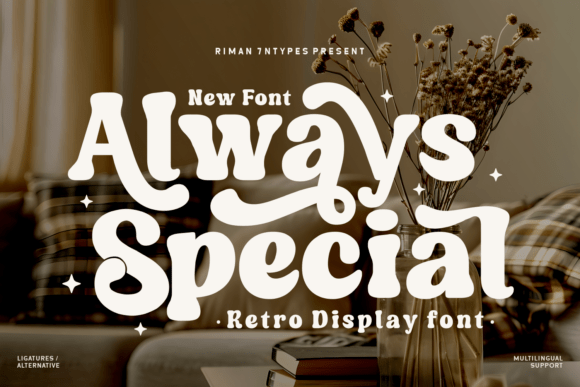
Introducing Always Special Font: A Timeless Blend of Vintage Charm and Modern Sophistication
In the world of typography, few fonts manage to strike a balance between nostalgia and modernity. However, “Always Special” font has successfully achieved this feat, offering an enchanting fusion of vintage charm and contemporary appeal. This unique blend makes it an ideal choice for designers seeking to infuse their projects with a sense of coziness, warmth, and magnetic charm.
The Essence of Always Special Font
Always Special font tenderly encapsulates the cozy familiarity of yesteryears while still resonating a fresh, contemporary appeal. Its playful twists and smooth, rounded contours make it a standout in the world of typography. The font’s design is characterized by:
- Vintage Charm: Always Special font draws inspiration from classic typography, evoking memories of traditional printing and nostalgic signage.
- Modern Sophistication: The font’s clean lines, balanced proportions, and elegant curves bring a touch of modernity to its vintage roots.
- Playful Twists: Unique and artistic flourishes add a playful touch to the font, making it perfect for creative projects.
- Smooth, Rounded Contours: The font’s rounded edges and smooth curves create a sense of warmth and approachability.
Applications of Always Special Font
The versatility of Always Special font makes it suitable for a wide range of applications, including:
- Corporate Branding: Establish a strong brand identity with a font that exudes warmth, approachability, and professionalism.
- Bespoke Invitations: Create unique and personalized invitations for special occasions, such as weddings, parties, and events.
- Artistic Endeavors: Add a touch of elegance and sophistication to your artistic projects, including posters, flyers, and brochures.
- Digital Media: Use Always Special font in digital media, such as social media graphics, email headers, and website content.
Why Choose Always Special Font?
Always Special font offers a unique combination of characteristics that make it an attractive choice for designers:
- Irresistible Visual Appeal: The font’s distinctive style and charm make it impossible to ignore.
- Standout Legibility: Always Special font is designed to be highly legible, ensuring that your message is conveyed clearly and effectively.
- Inviting Warmth: The font’s warm and cozy feel creates a sense of comfort and approachability.
- Magnetic Charm: Always Special font has a unique ability to draw the reader in and hold their attention.
Design Tips and Best Practices
To get the most out of Always Special font, consider the following design tips and best practices:
- Use it as a Headline Font: Always Special font is perfect for headlines and titles, where its unique style and charm can shine.
- Pair it with a Sans-Serif Font: Combine Always Special font with a sans-serif font for body text to create a harmonious contrast.
- Experiment with Colors: Try out different colors and textures to enhance the font’s visual appeal and create a unique look.
- Keep it Simple: Avoid over-accessorizing the font with too many effects or styles, and let its natural charm shine through.
Always Special font is a timeless and versatile typeface that offers a unique blend of vintage charm and modern sophistication. Its playful twists, smooth contours, and irresistible visual appeal make it an ideal choice for designers seeking to add a touch of coziness, warmth, and magnetic charm to their projects. Whether you’re working on corporate branding, bespoke invitations, or artistic endeavors, Always Special font is the perfect choice for any design that craves a sense of inviting warmth and standout legibility.